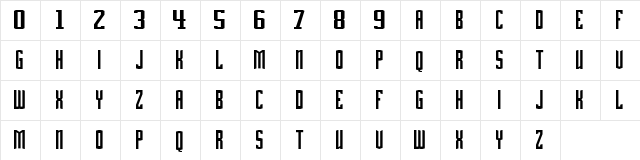
NHL Edmonton Alternate Regular
Design Context for NHL Edmonton Alternate Typeface
NHL Edmonton Alternate is a composed and adaptable typeface that performs quietly and consistently across a wide range of design contexts.
Pro Tip: Use NHL Edmonton Alternate in both headline and body roles to test its range before committing to a single application.